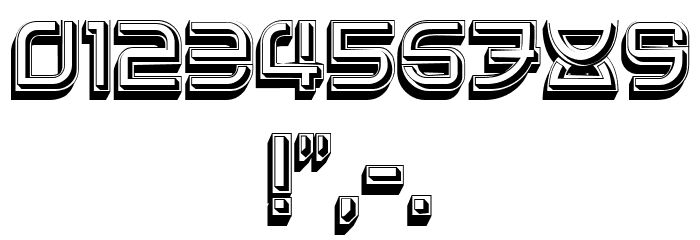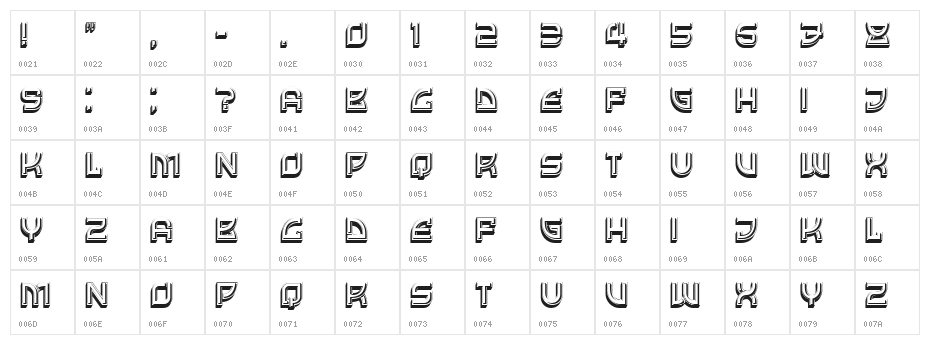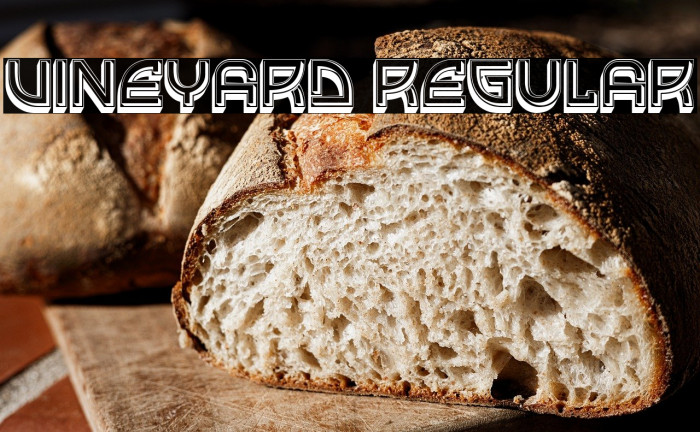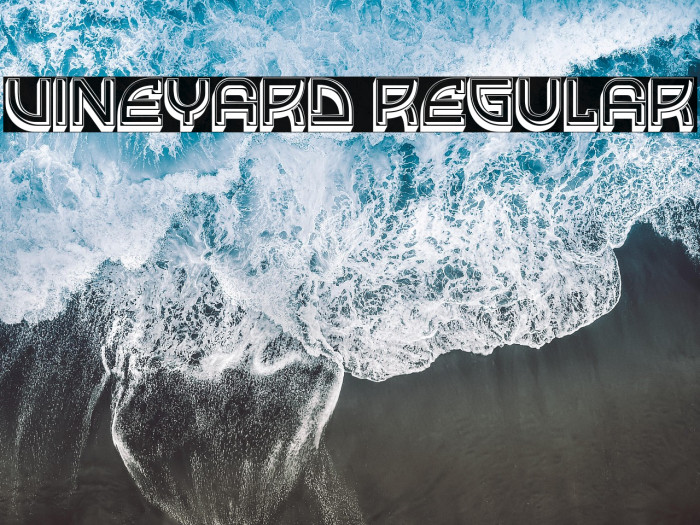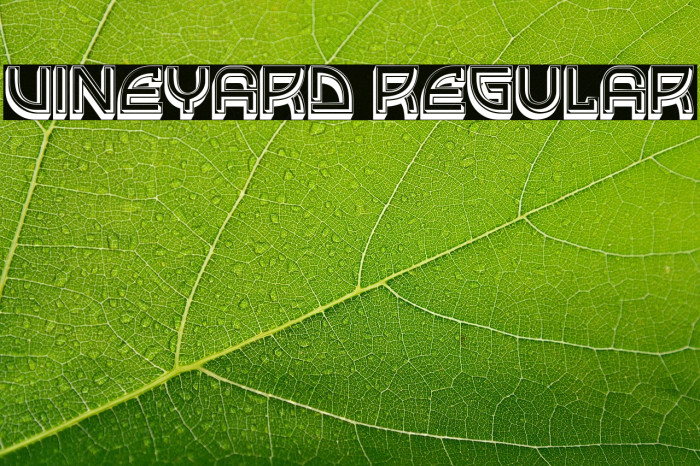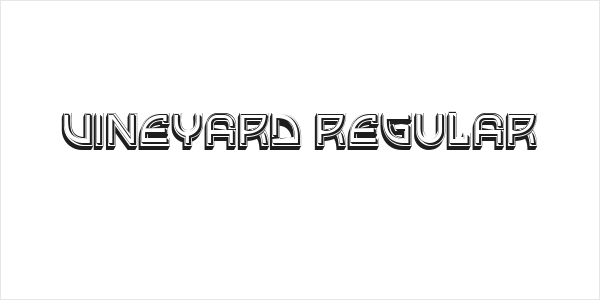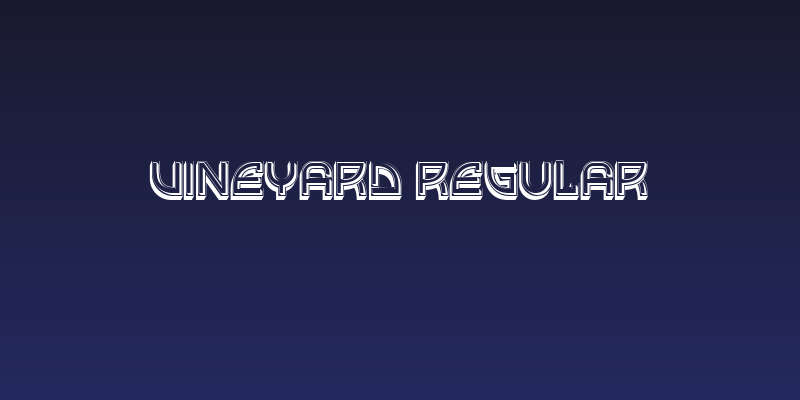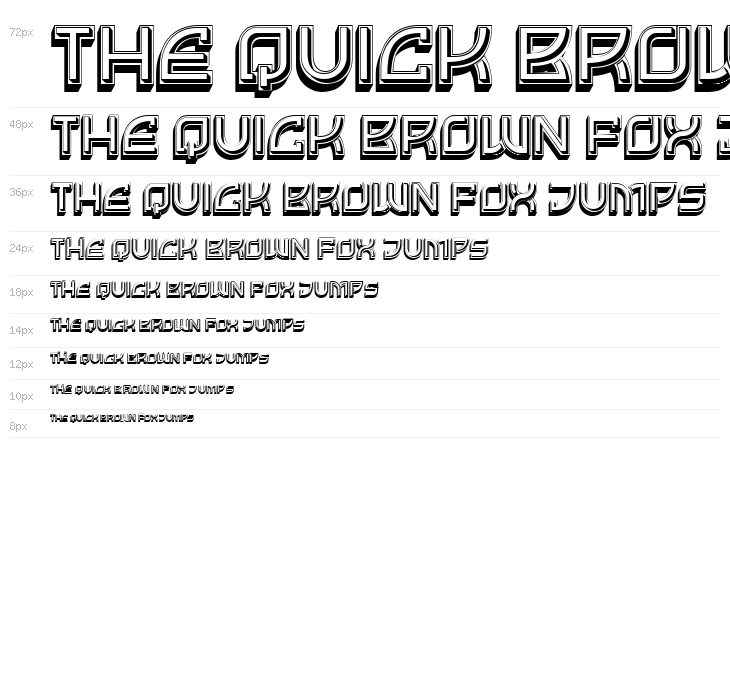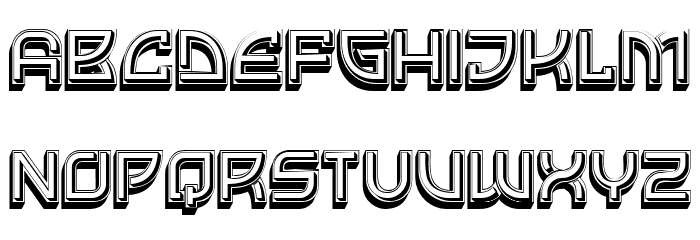
Vineyard Regular Font
Vineyard Regular Description
This font features a bold, decorative style with a three-dimensional effect that gives it a striking appearance. The characters are outlined with a shadow, creating a sense of depth and dimension. The uppercase and lowercase letters maintain a consistent geometric structure, with sharp angles and clean lines. The numbers and special characters follow the same design principles, ensuring a cohesive look across all elements. This font's unique style makes it stand out, making it ideal for eye-catching designs.